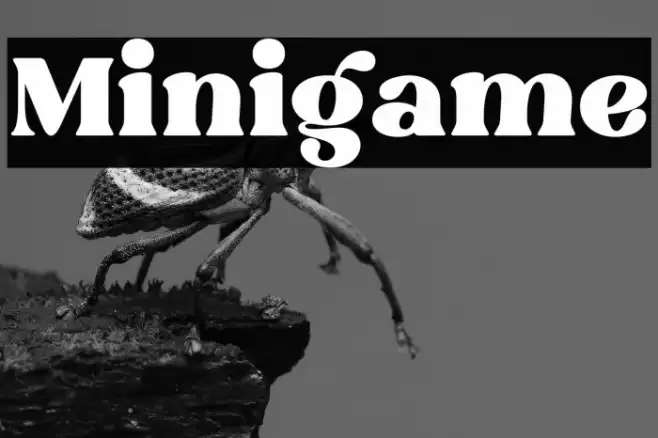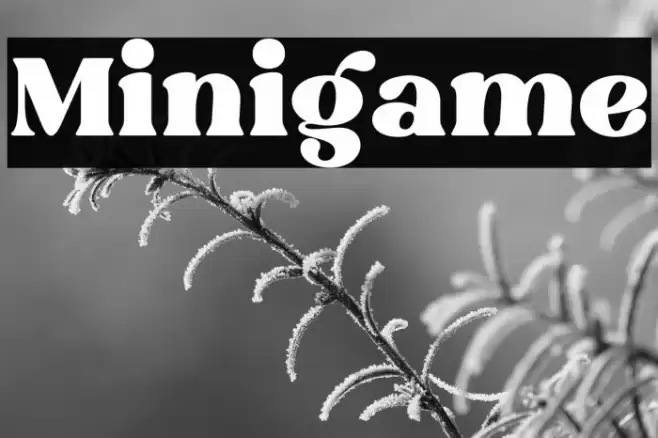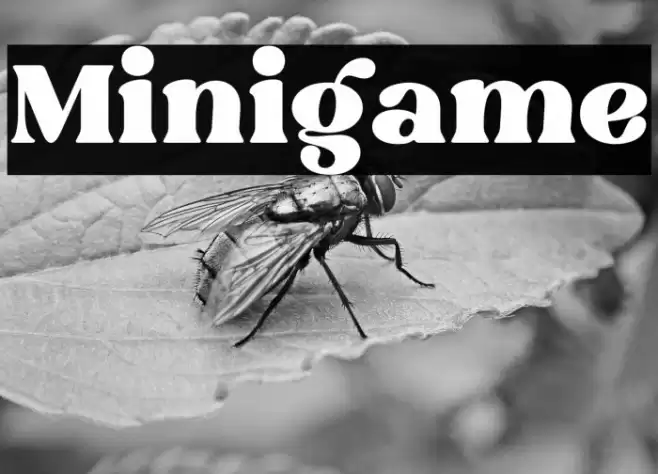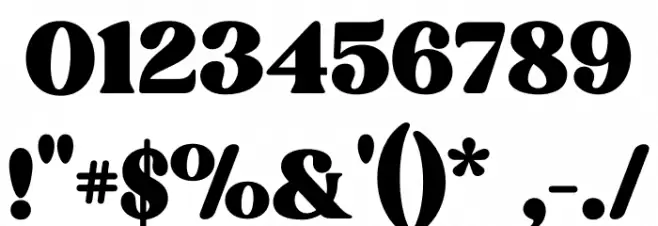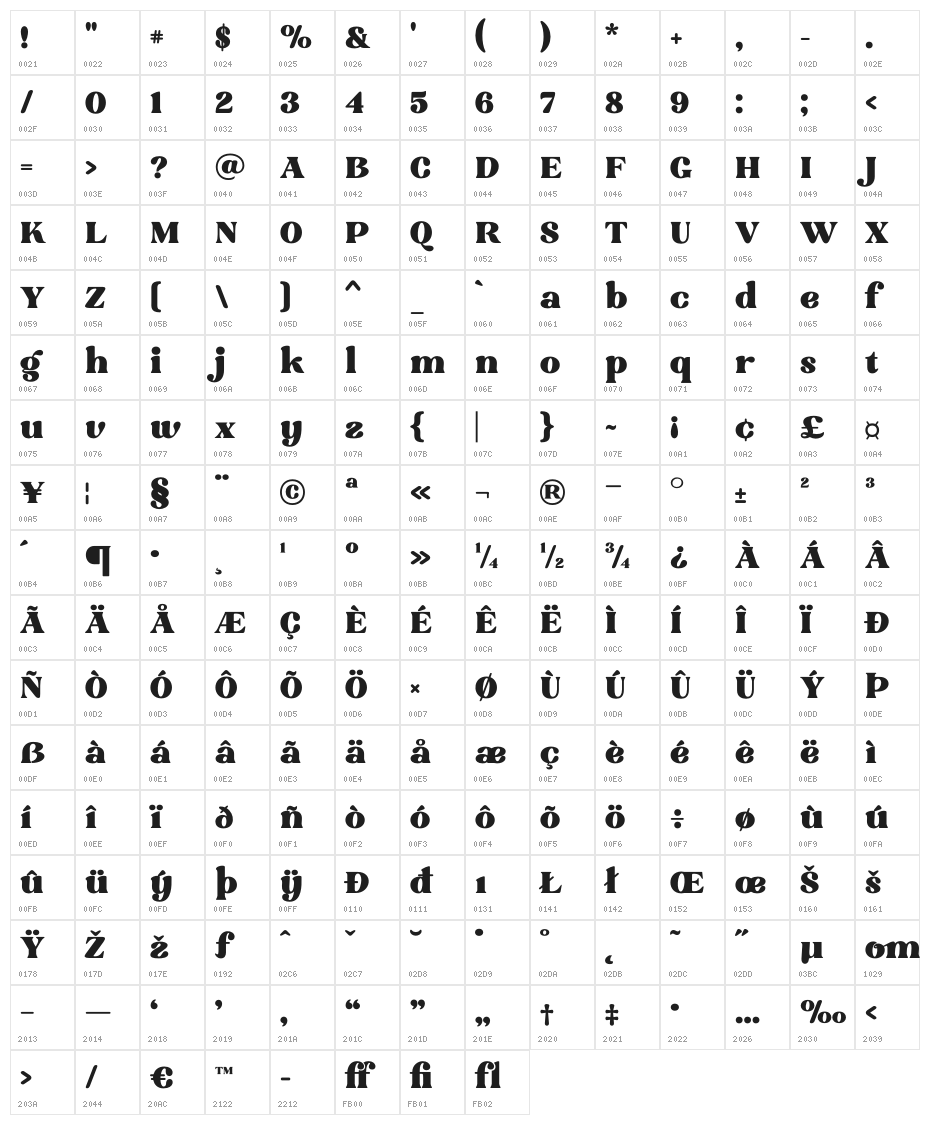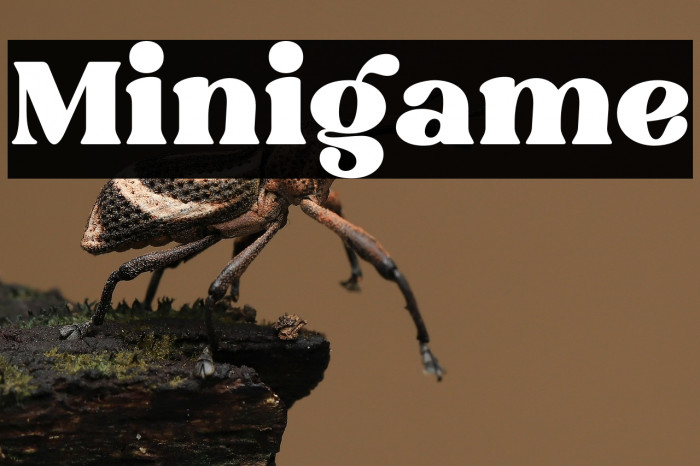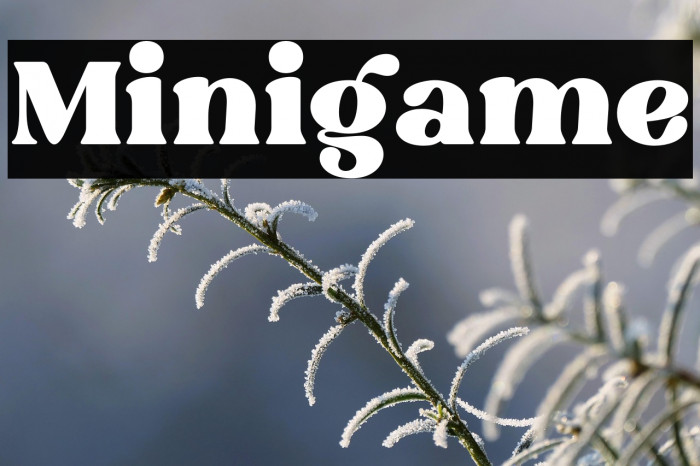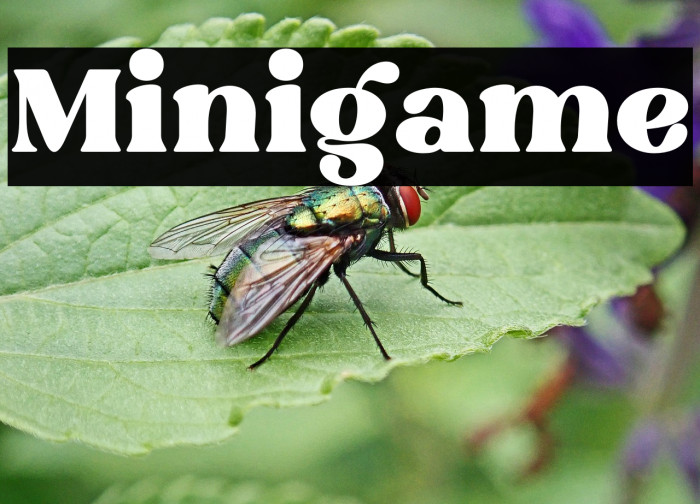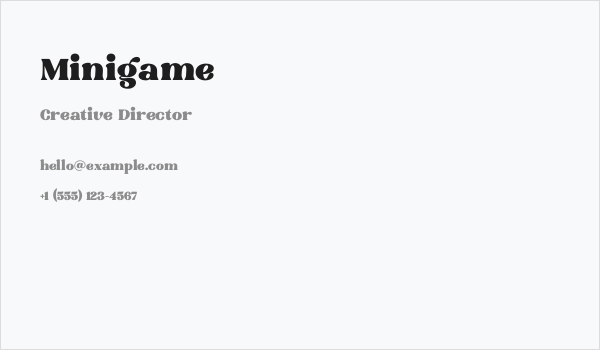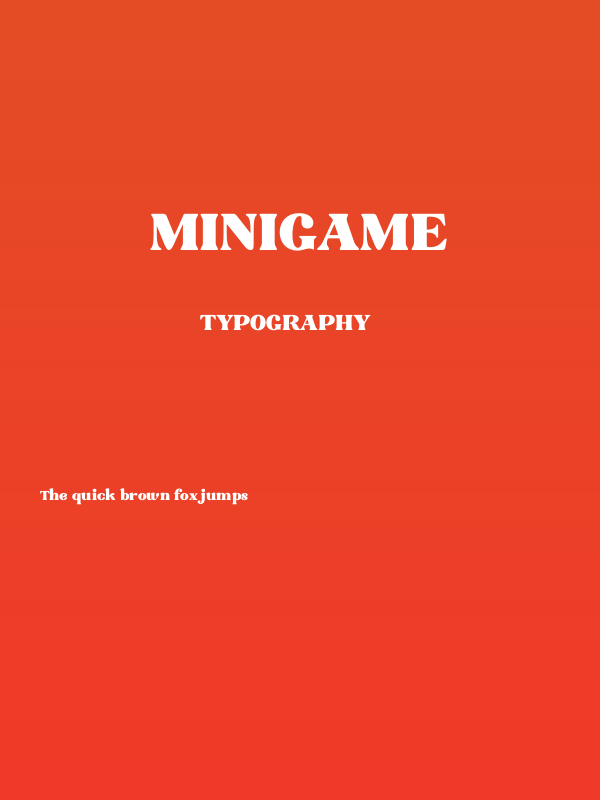
Minigame Font
Minigame Description
This font features a bold and robust design with thick strokes and a strong presence. The uppercase letters have a classic serif style with pronounced serifs that give a sense of authority and tradition. The lowercase letters maintain the same boldness, with rounded edges that add a touch of softness to the overall appearance. The numerals are equally bold, ensuring they stand out clearly. Special characters are designed with the same thick strokes, ensuring consistency throughout the font. This font's strong contrast and bold weight make it ideal for attention-grabbing designs.
A bold serif font with strong strokes and classic design from Uncategorized fonts.
- Proposed Projects: Ideal for headlines, posters, branding, and any project requiring a strong, authoritative typeface.
- Overall Style: Classic